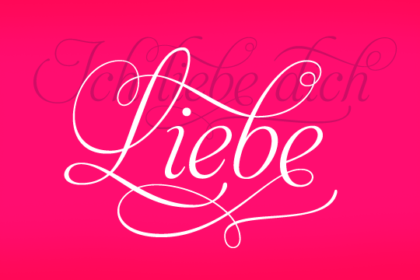
Aphrodite Slim
Aphrodite Slim Pro is not just a lighter version of its sister Aphrodite Pro. Aphrodite Slim Pro has duplicated the quantity of characters of its partner, and that means more than 500 new glyphs, reaching a total of more than 1000.
More delicate and meticulous, Aphrodite Slim Pro is once more a new typography with deep calligraphic ideals: We immersed ourselves into the world of each calligraphy ductus and each calligraphy masters by studying from decoration to lettering books.
This was the key for the logic of Aphrodite Slim’s behavior.